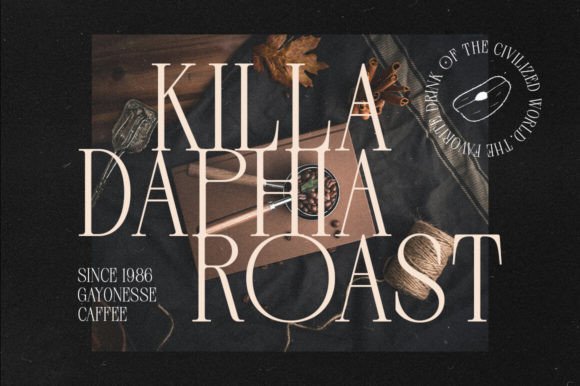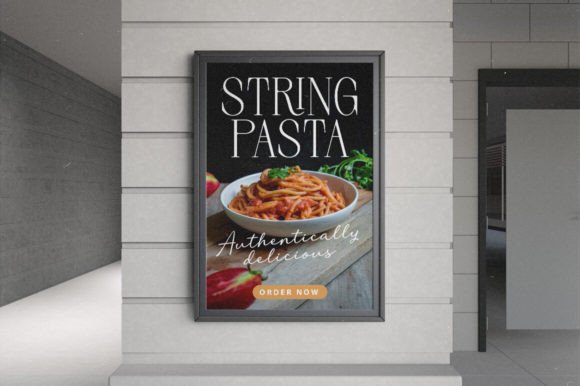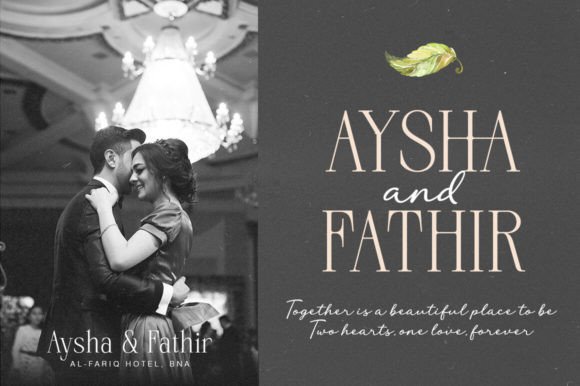
Introduction to Raymond Khomers Font
Have you ever been in a creative moment where you’re staring at a blank canvas, trying to come up with the perfect font to bring your design to life? For many designers, finding the right font can be the make-or-break moment in their project. That’s where the elegant Raymond Khomers Font comes in – a high-quality display serif that adds a touch of sophistication to any design.
As a valuable resource for designers, the Raymond Khomers Font offers a unique blend of feminine style and casual script, making it perfect for a wide range of creative projects. From branding logos to wedding designs, this font is sure to add a touch of elegance and sophistication to any design.
Key Features of Raymond Khomers Font
- High-quality design resource suitable for creative projects, offering a unique and professional look.
- Designed with precision and attention to detail, making it an ideal choice for designers seeking a high-quality font.
Honest Review: Raymond Khomers Font
As a designer, I’m always on the lookout for high-quality design resources to elevate my creative projects. Recently, I came across the Raymond Khomers Font, and I’m excited to share my honest review with you.
- ✨ The font’s unique style and aesthetic make it perfect for creative projects that require a touch of elegance and sophistication.
- ⚠️ The font may not be suitable for projects that require a more modern or minimalist aesthetic.
- ⚠️ Some users may find the font’s complexity challenging to work with, especially for beginners.
Overall, I’m impressed with the Raymond Khomers Font and would definitely recommend it for designers looking for a high-quality, creative design resource. Its unique style and transparent background make it an excellent choice for various design projects.
How to Use Raymond Khomers Font
Raymond Khomers Font is a high-quality design resource ideal for creative projects that require a unique and eye-catching touch. This versatile font features a transparent background, making it perfect for various design applications.
Getting the Most Out of Raymond Khomers Font
To maximize the impact of this font, experiment with different font sizes, colors, and combinations to create visually appealing designs. Use the font in conjunction with other design elements, such as graphics and images, to add depth and interest to your creative project.
Raymond Khomers Font is ideal for a variety of design applications, including social media graphics, blog posts, and marketing materials. Its unique and stylish design makes it perfect for creative projects that require a touch of sophistication and elegance.